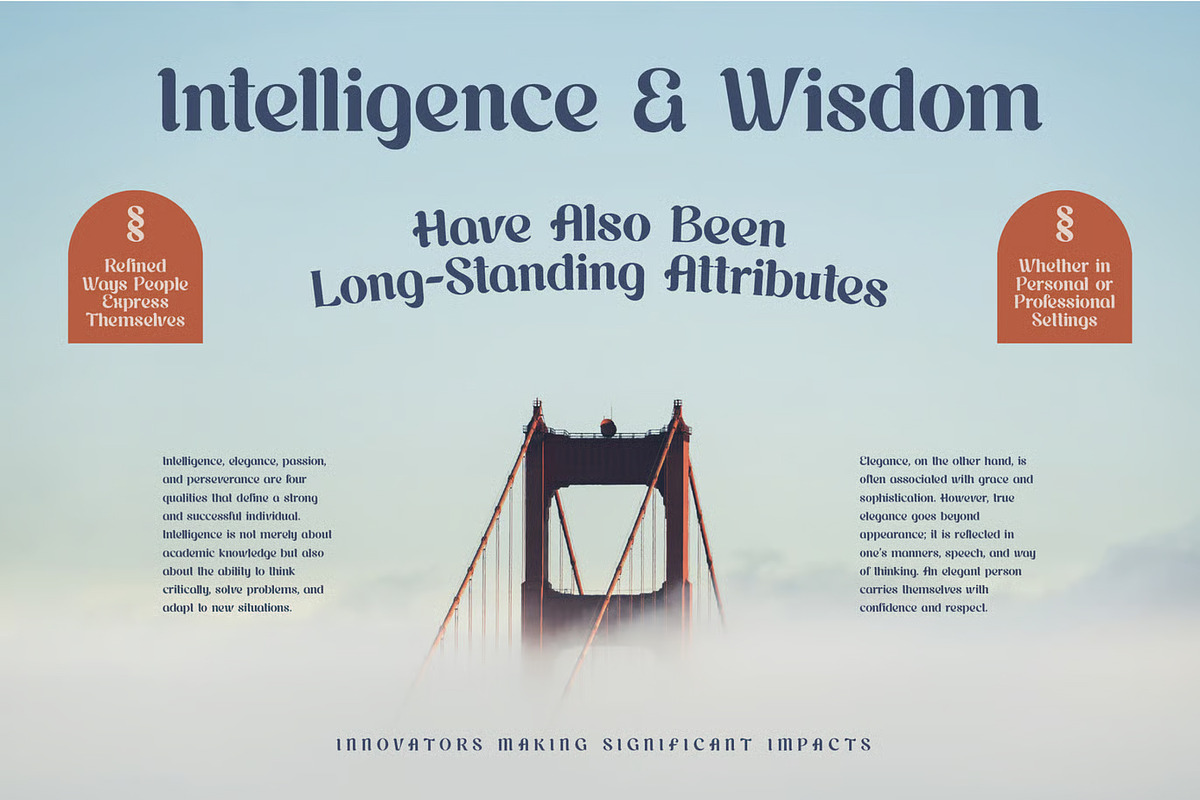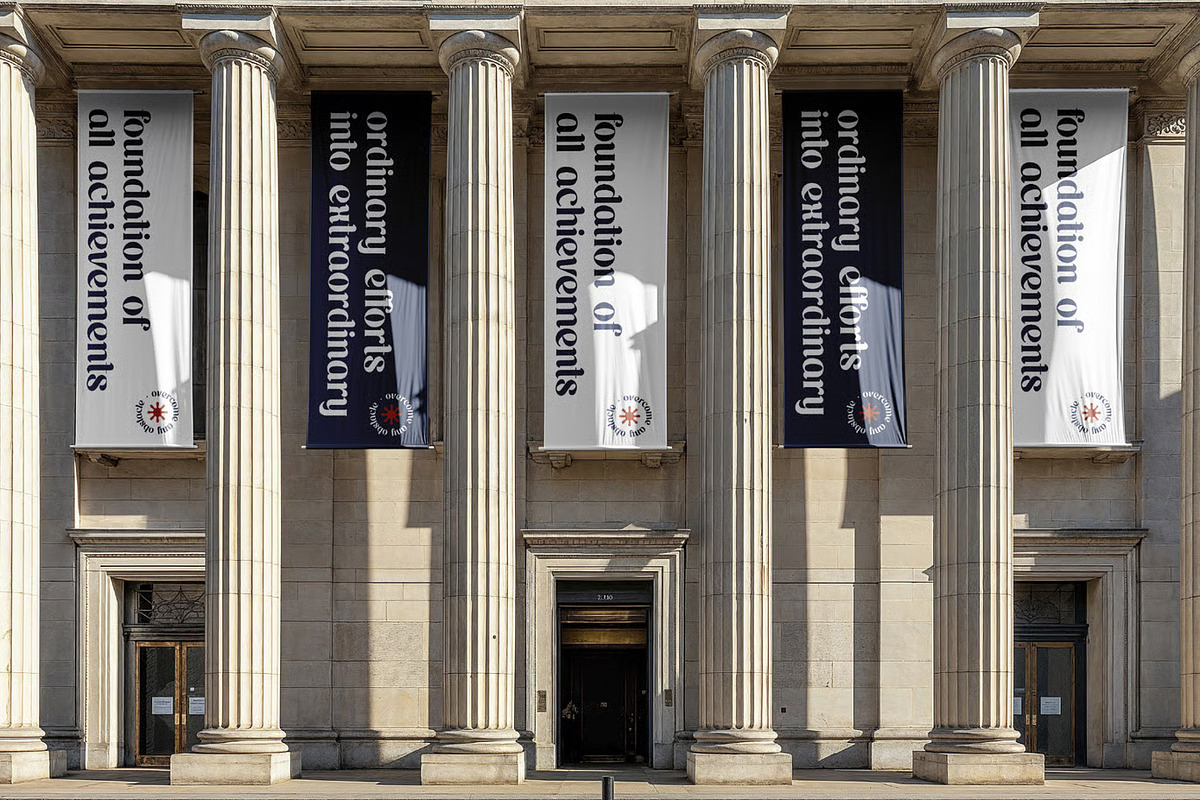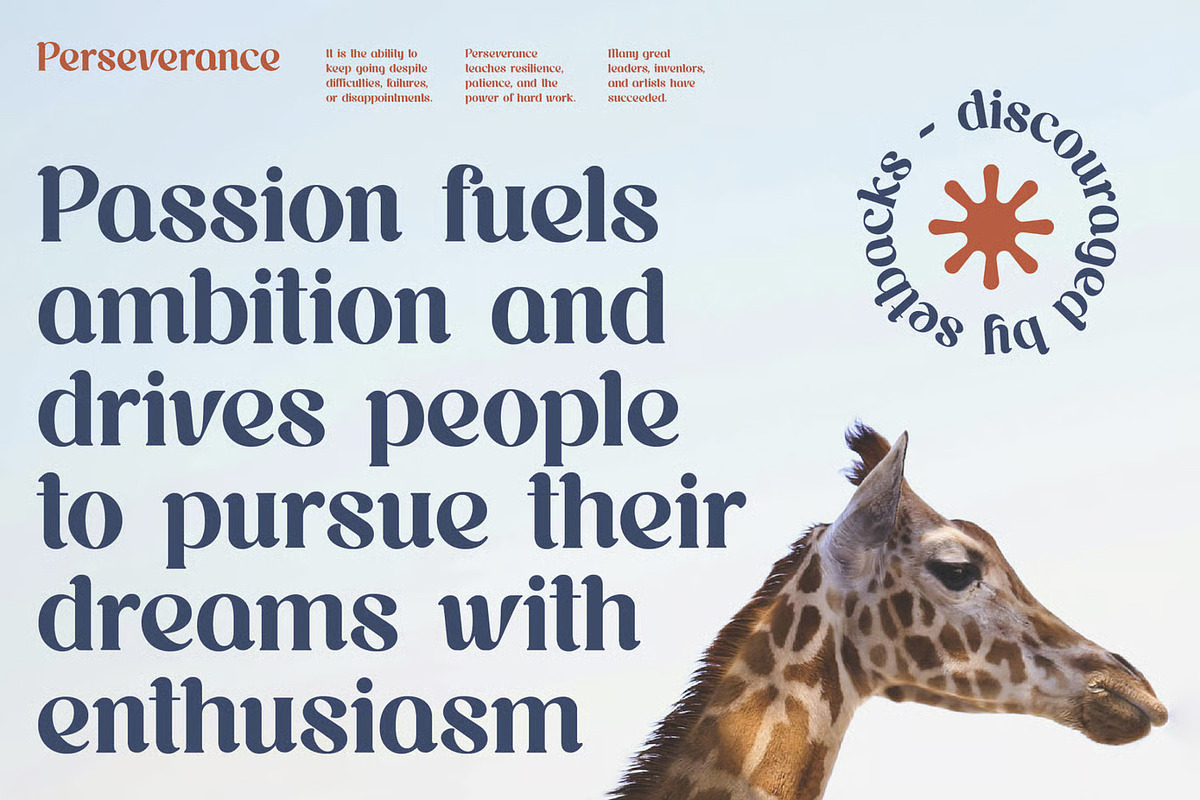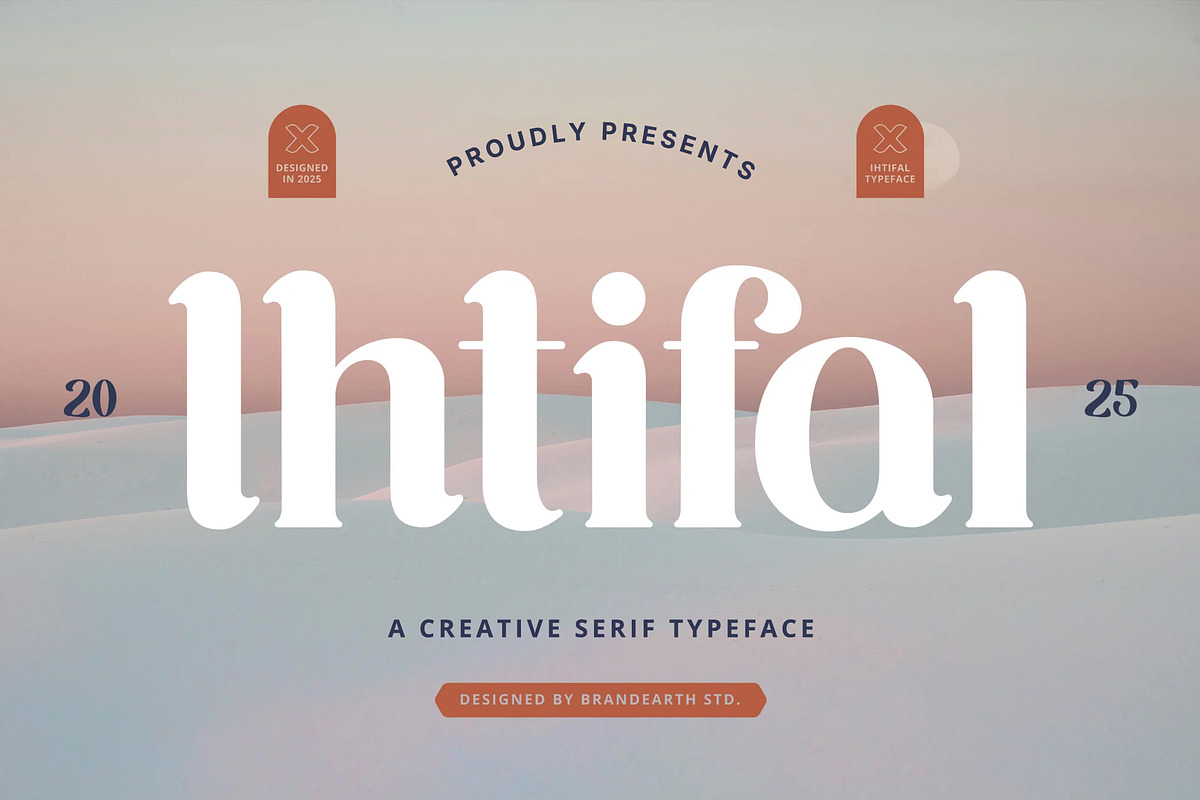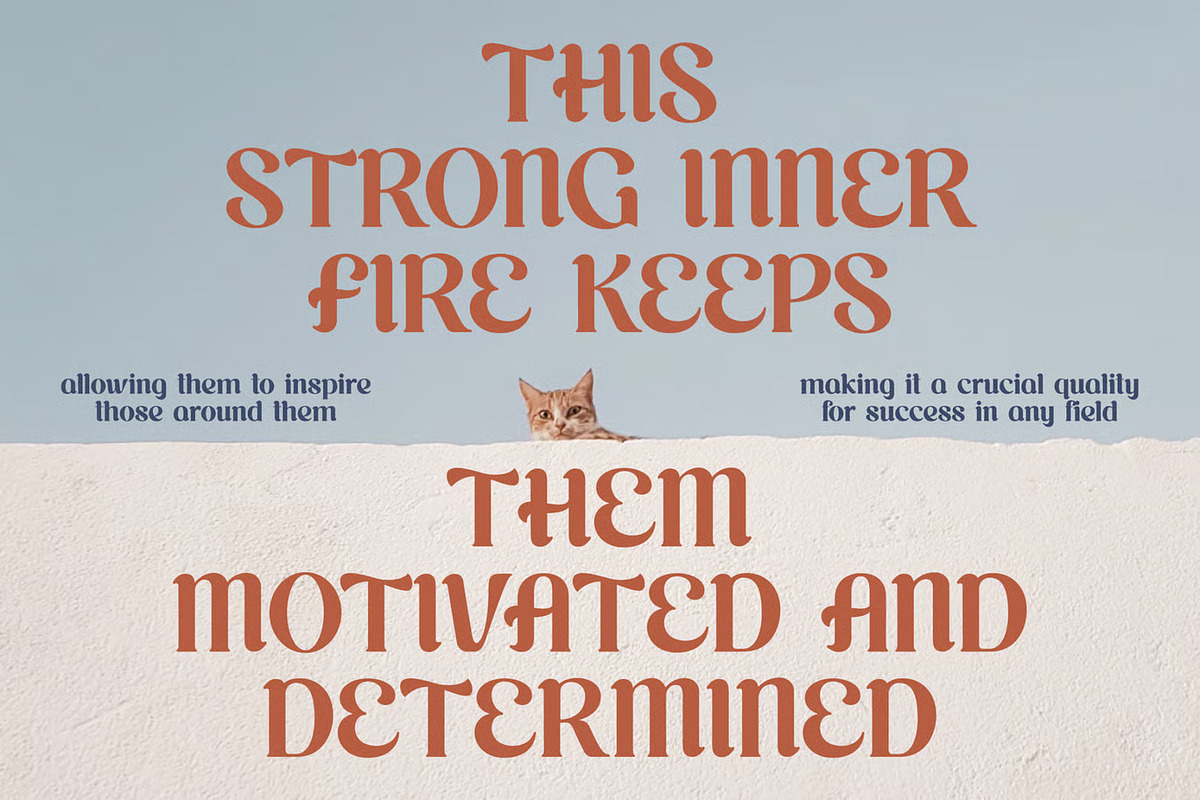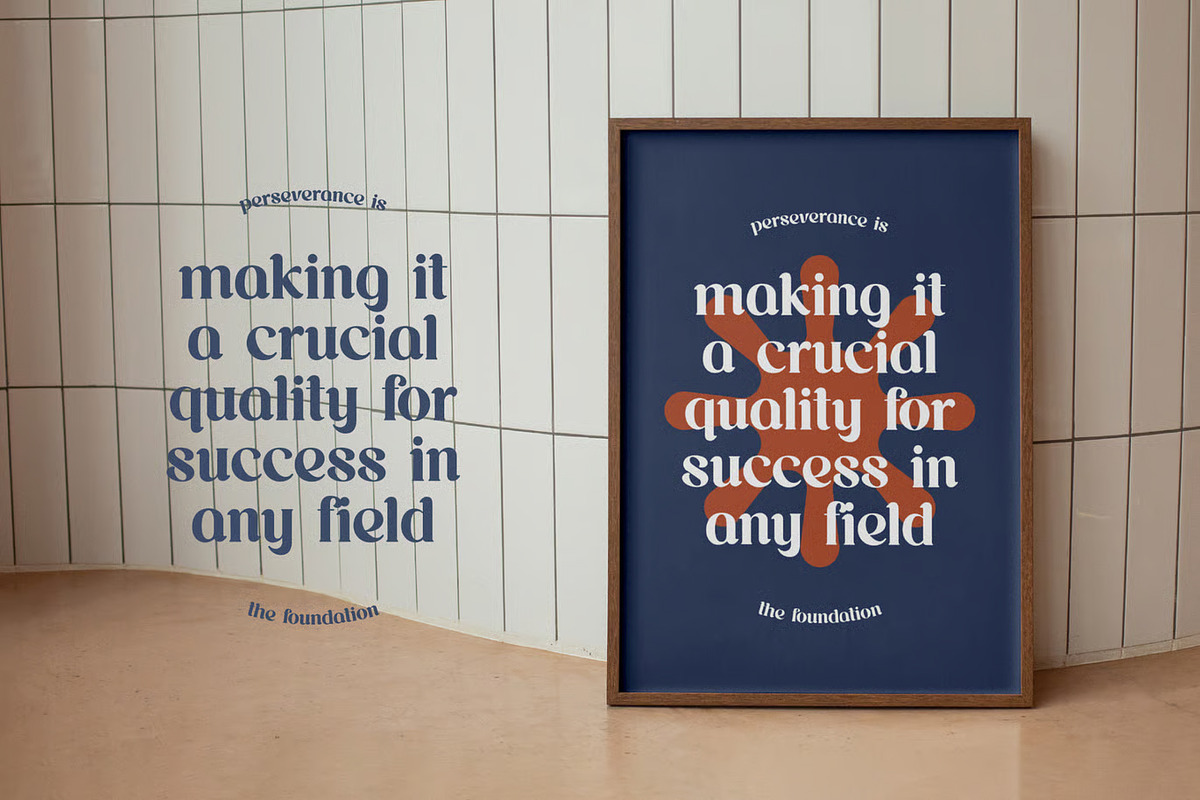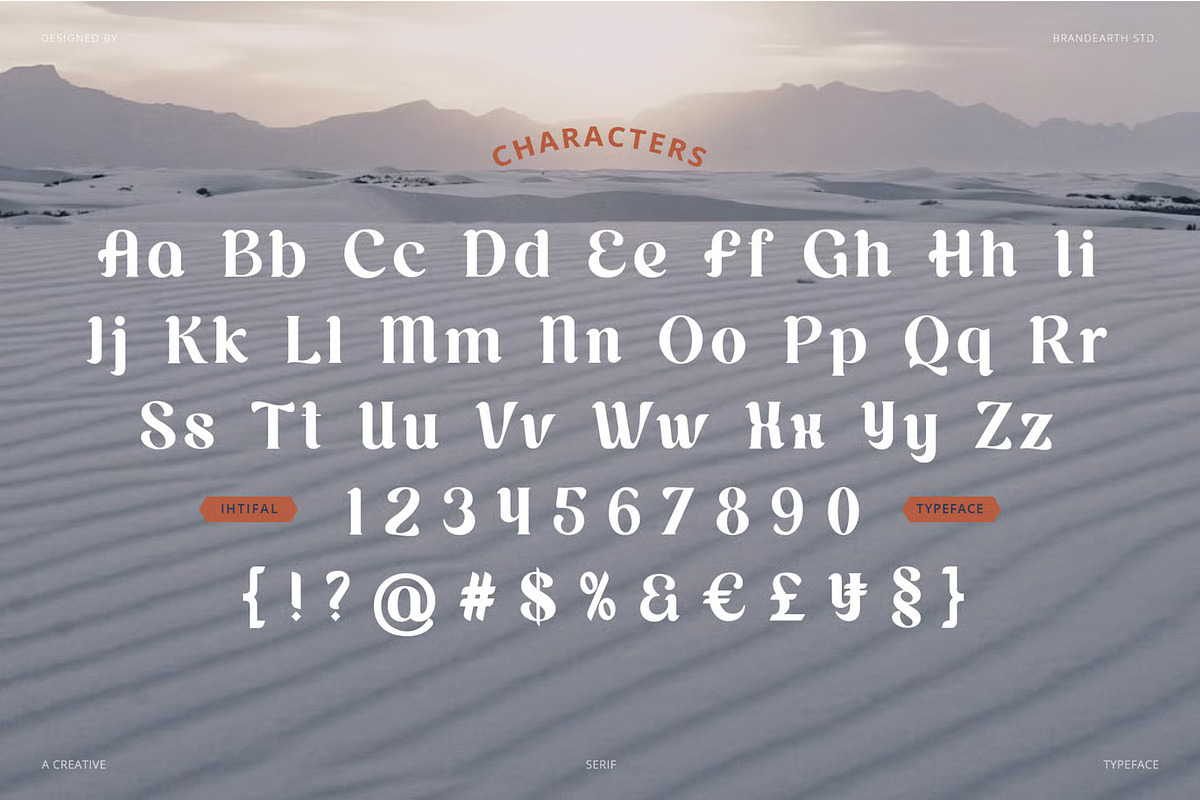
Ihtifal – Elegant Display Serif
Ihtifal is a creative serif typeface that blends expressive serif curves with soft, sculpted letterforms. Designed to evoke a sense of personality and elegance with a creative twist, it blends gracefully into modern and editorial branding contexts. Its energy is warm, confident, and distinctive—perfect for those looking to elevate their brand with a bold yet sophisticated visual identity.
The letterforms in Ihtifal are carefully crafted with distinctive terminals, rounded stroke transitions, and a balanced contrast that gives the typeface a warm yet confident rhythm. It features a refined display elegance that is perfect for fashion labels, beauty campaigns, editorial headlines, and lifestyle branding.
With its sculpted, expressive forms and graceful transitions, Ihtifal bridges the gap between classic sophistication and creative flair. It provides a touch of personality while remaining polished, making it ideal for social media graphics, inspirational quotes, boutique logos, and modern packaging.
Main Features
Ligatures & Alternate
Numeral & Punctuations
Suitable For: branding, packaging, logos, fashion labels, beauty campaigns, lifestyle brands, editorial layouts, social media graphics, inspirational quotes, wedding stationery, boutique tags, magazine headers, and modern display typography.